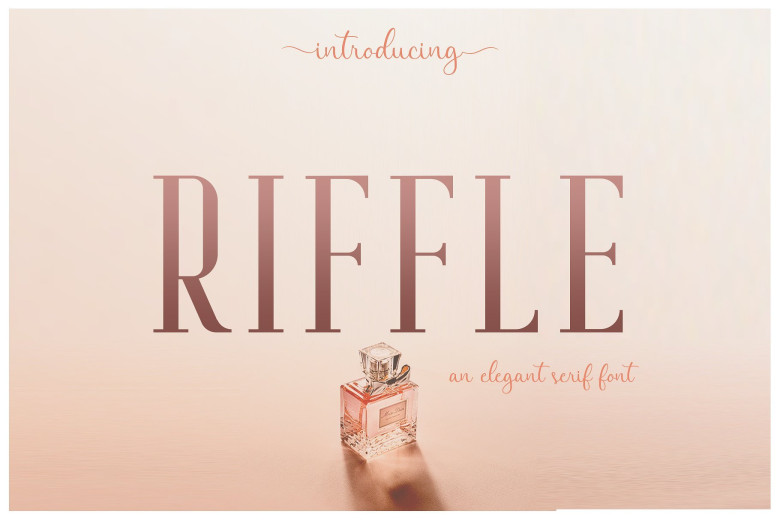
Riffle Typeface
An elegant serif font family. Has a very unique style of serif, it is very suitable for use in the work of modern design. Introducing Riffle Font. The distinctive features of Riffle Font Family are the relatively low contrast of strokes, the slightly squarish shapes of round characters and the emphasized businesslike nature. Riffle Font Family has been crafted from scratch with a structural logic of its own: a fusion of pure geometry and optical balance. By combining a variety of styles Riffle Font Family is suitable for Logo, greeting cards, quotes, posters, branding, name card, stationary, design title, blog header, art quote, typography.